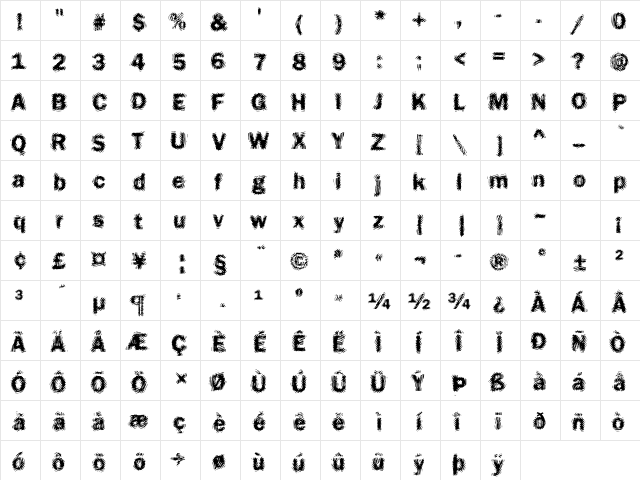
DTCFunkyM17 Regular
Design Context for DTCFunkyM17 Typeface
DTCFunkyM17 trades formality for fun, with bouncy, characterful letterforms that bring warmth and energy to any project.
Font Pairing: Pairs well with a rounded or humanist sans for body copy, maintaining the friendly tone without relying on DTCFunkyM17 to carry extended reading.
Pro Tip: Avoid using DTCFunkyM17 for long passages of text — it works best for headlines, labels, and short calls to action.